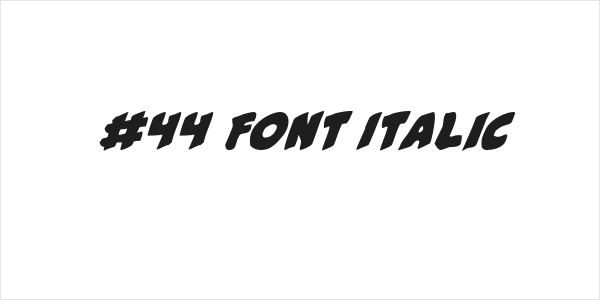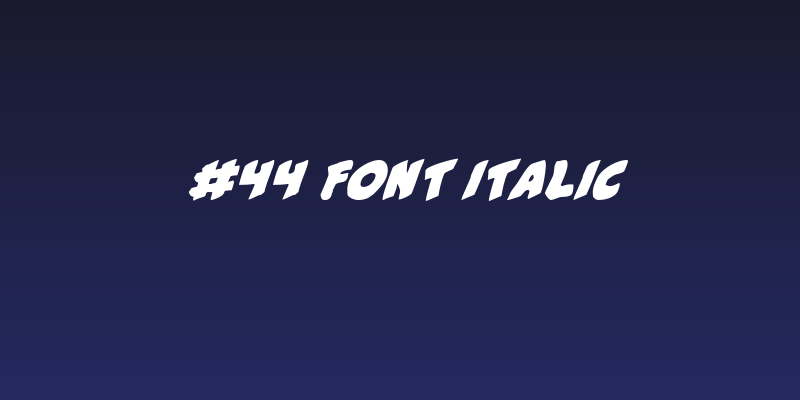
#44 Font Italic Font
#44 Font Italic Description
This font features a bold and dynamic style with a strong italic slant, giving it a sense of motion and energy. The characters are thick and robust, with a slightly condensed width that enhances their impactful presence. The uppercase and lowercase letters maintain a consistent style, with rounded edges and a smooth flow that adds to the overall boldness. The numbers and special characters are equally bold, ensuring uniformity across all glyphs. This font's high contrast in stroke thickness further emphasizes its bold appearance, making it ideal for attention-grabbing designs.
| Proposed Projects | Ideal for sports branding, dynamic posters, and bold headlines. |